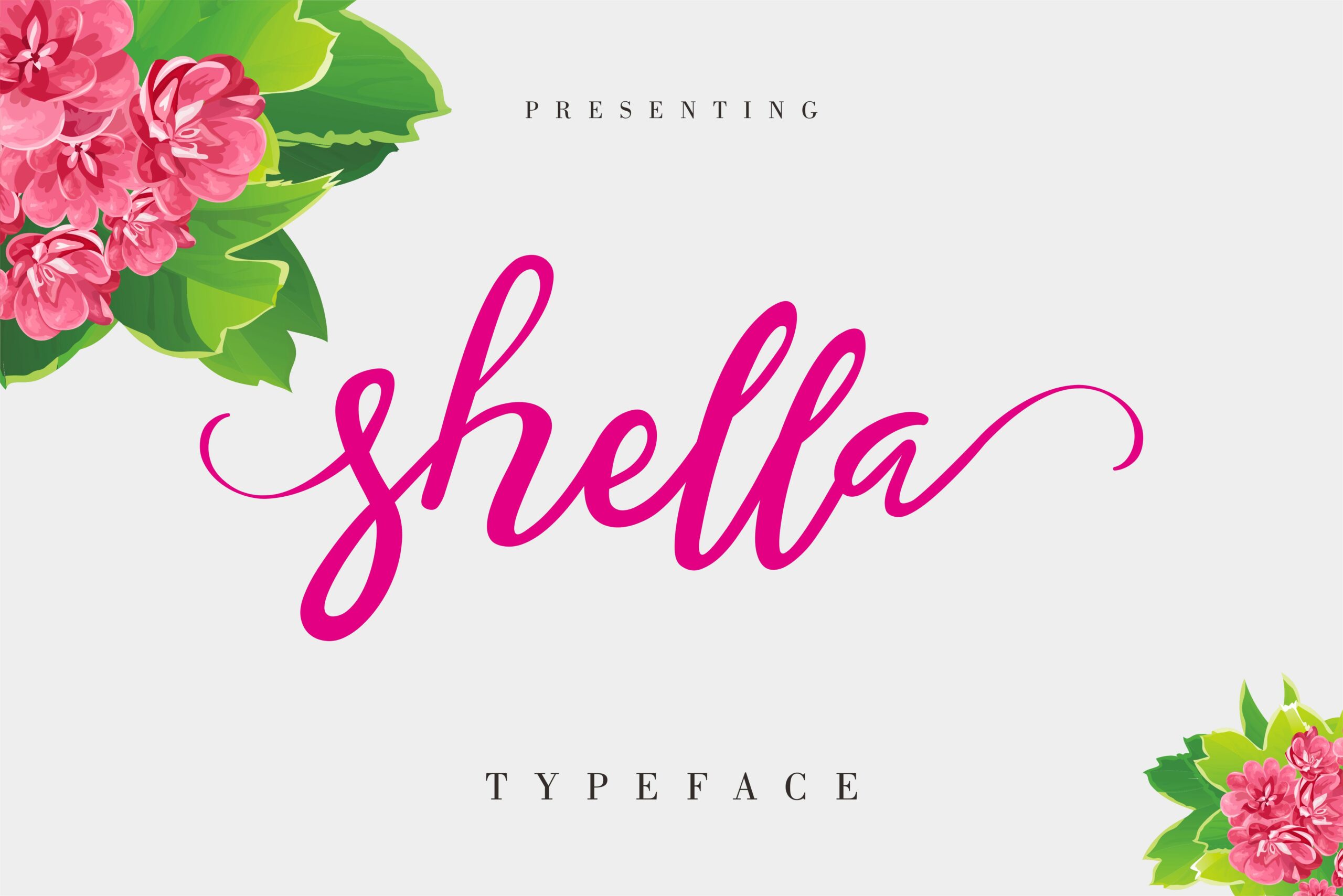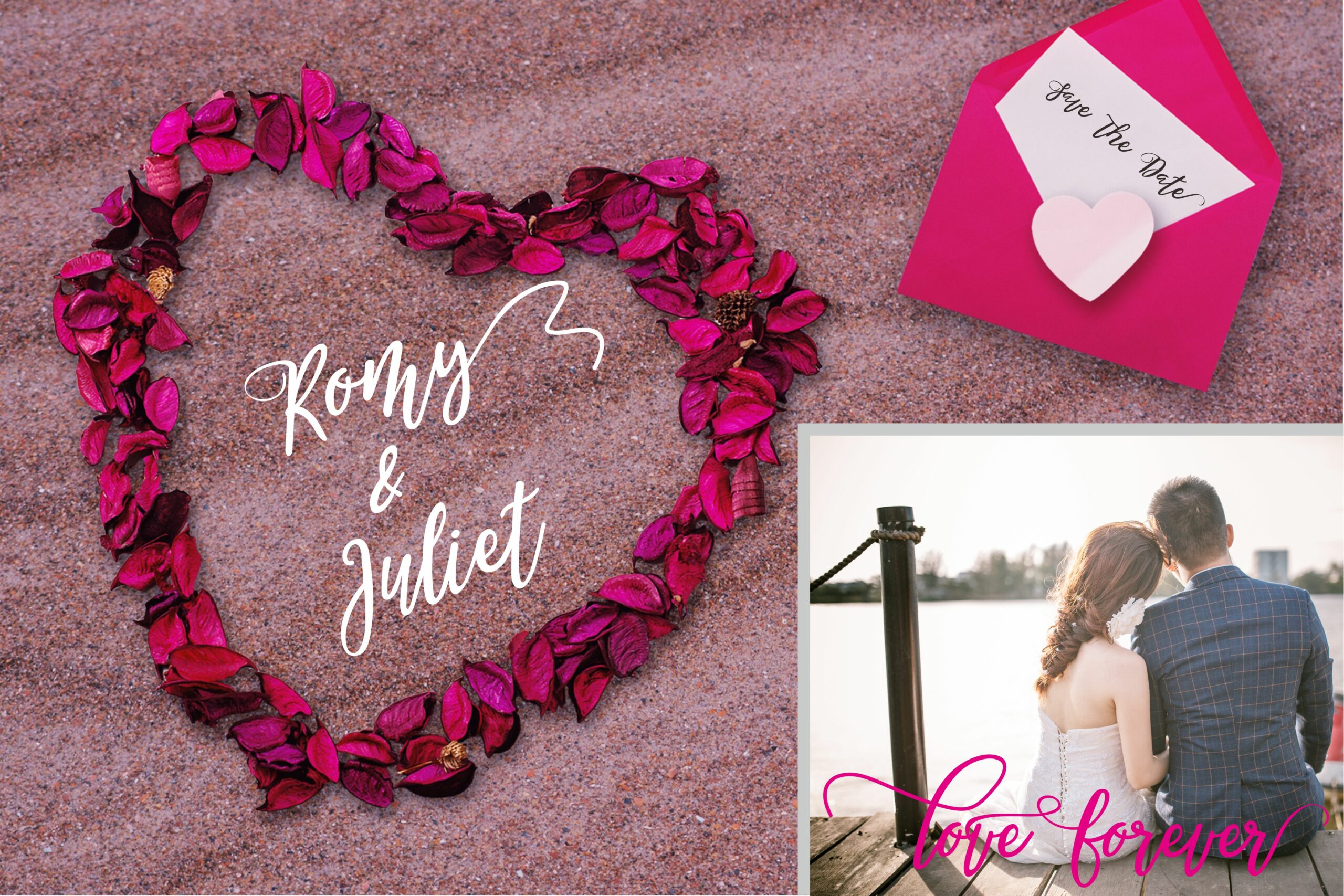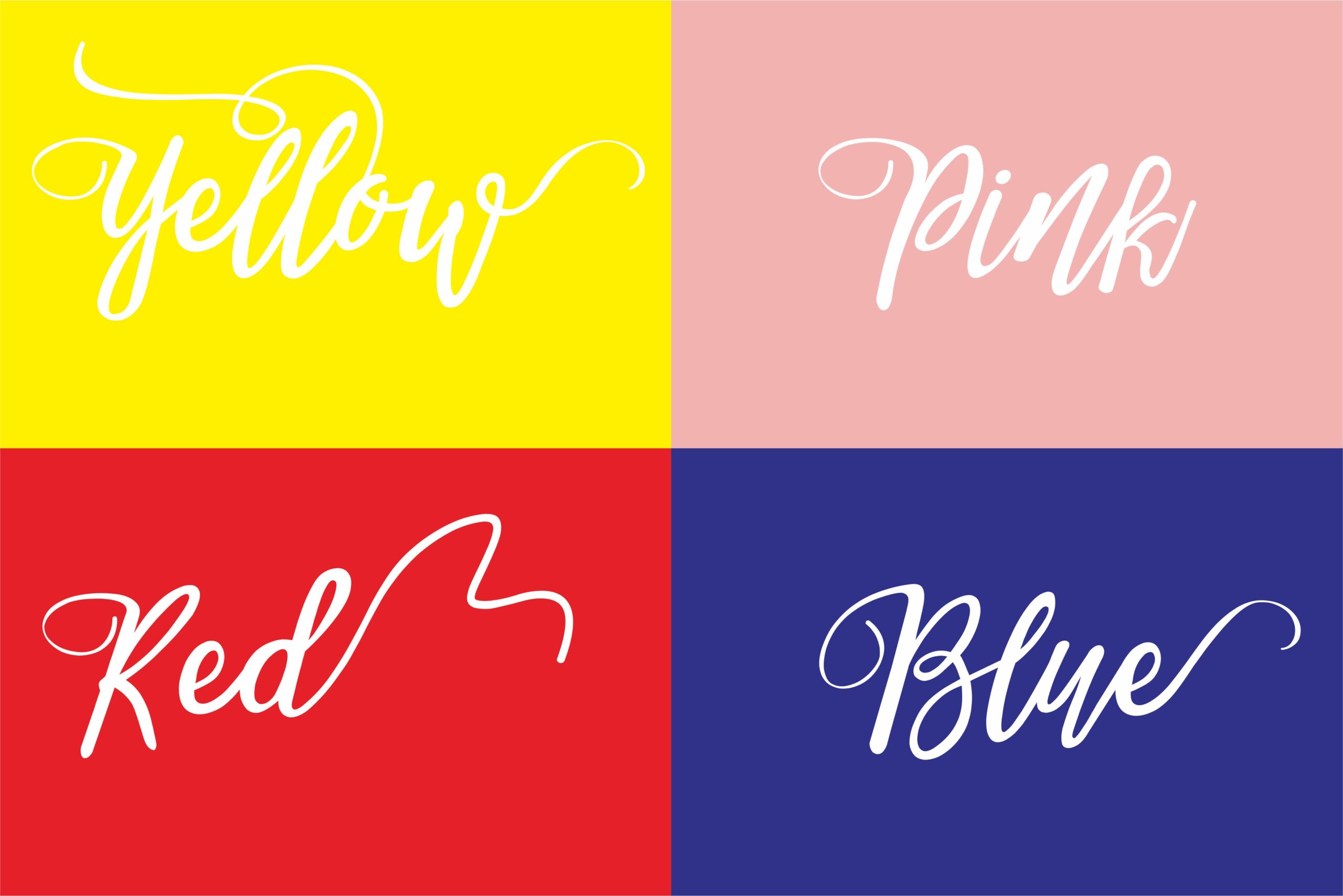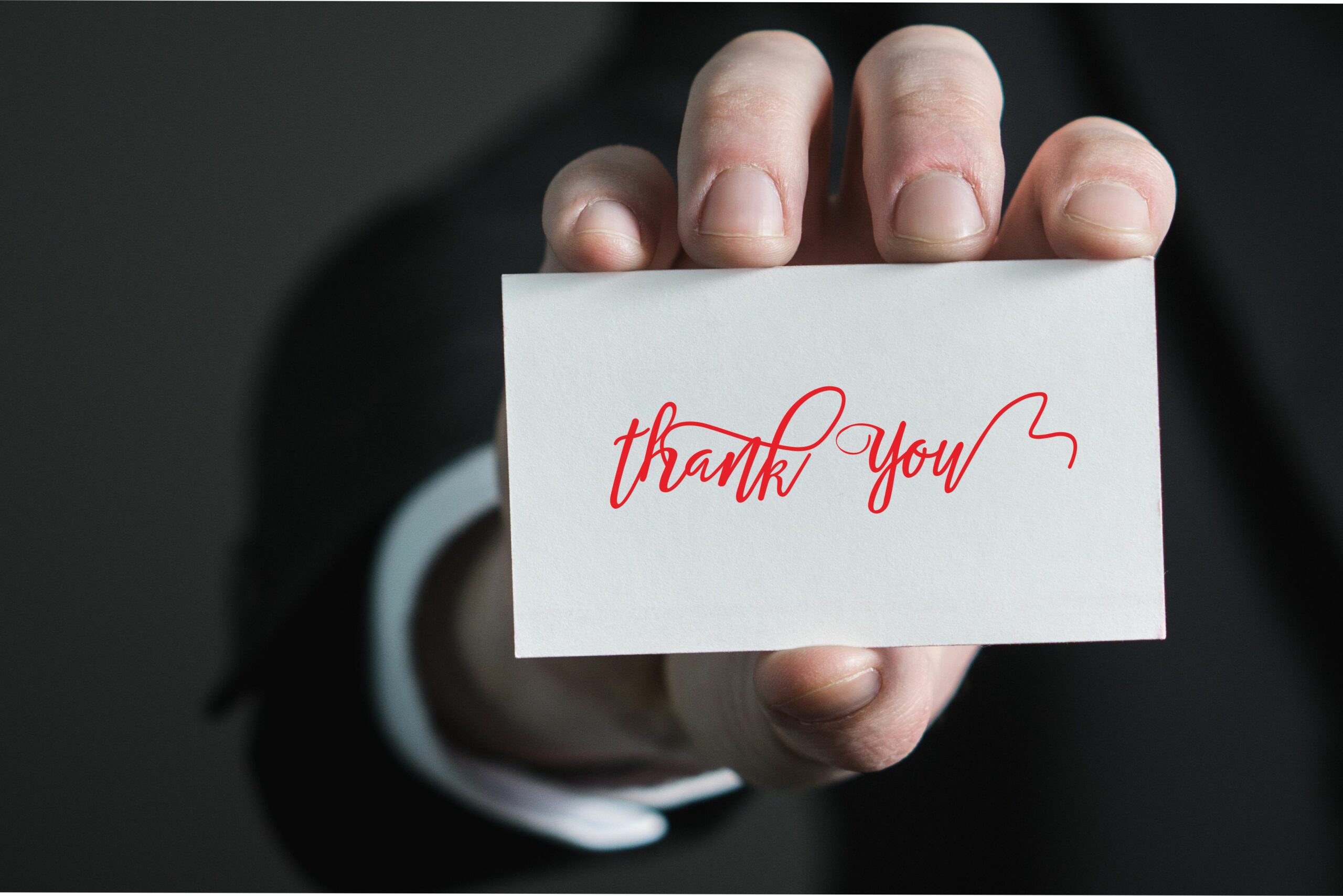
HomeScript FontsShella Font Script Fonts Shella Font FacebookXPinterestWhatsApp Shella Font Poster 2 Shella Font Poster 3 Shella Font Poster 4 Shella Font Poster 5 About Shella Font Shella is a modern, hand-based font. It’s made up of irregularly flowing characters. DOWNLOAD NOW People also explored YWFT Agostina Letter Clips Surprise Valentines Font Zikkalya Font Incise Pro Font Fat Santa Font Cllarin Font Cream Cheese & Onion Bagel Carouge Pro 302 0 TagsShella Font Previous articleBlanc FontNext articleSeullanga Font LEAVE A REPLY Cancel reply Comment: Please enter your comment! Name:* Please enter your name here Email:* You have entered an incorrect email address! Please enter your email address here Website: Save my name, email, and website in this browser for the next time I comment. Personal Use Free Propaganda Personal Use Free Read more about this font GoodFay Personal Use Free Read more about this font Soulties Personal Use Free Read more about this font Urkelian Personal Use Free Read more about this font BLOG Best Fonts for T-Shirt Design – Top 2025 Picks In 2025, t-shirt design has become more than just fashion—it's a form of self-expression. Whether you're... Exploring Font Trends Free Fonts Risk: Why Free Fonts Can Be Dangerous for Designers Best Fonts for YouTube Videos: Make Your Thumbnails Stand Out